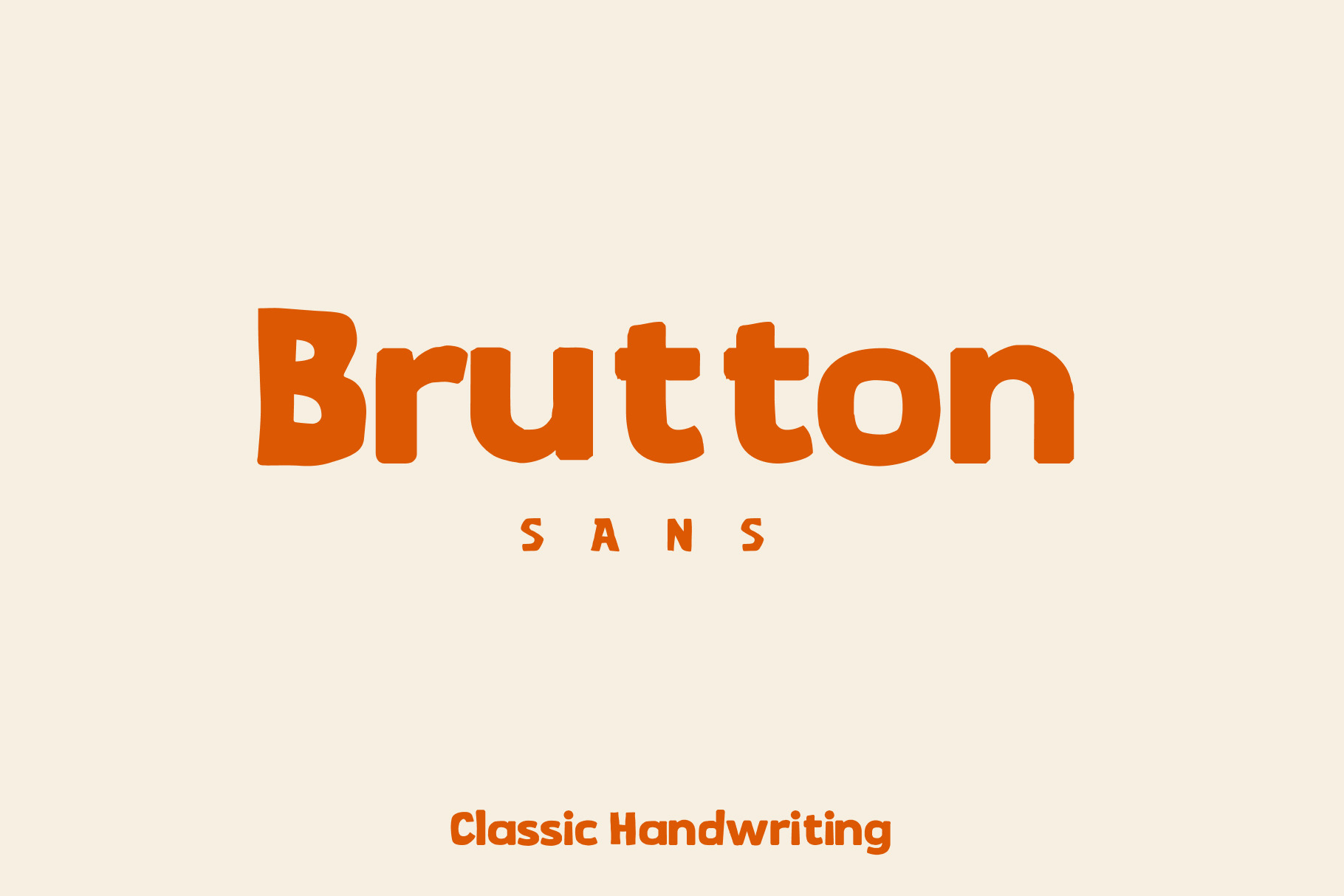
Brutton - Classic Handwriting Font
Brutton - Classic Handwriting Font is a sans serif font with a classical handwriting style. This font is very suitable for use in the printing industry, logo design, website headings, design templates or others design project.